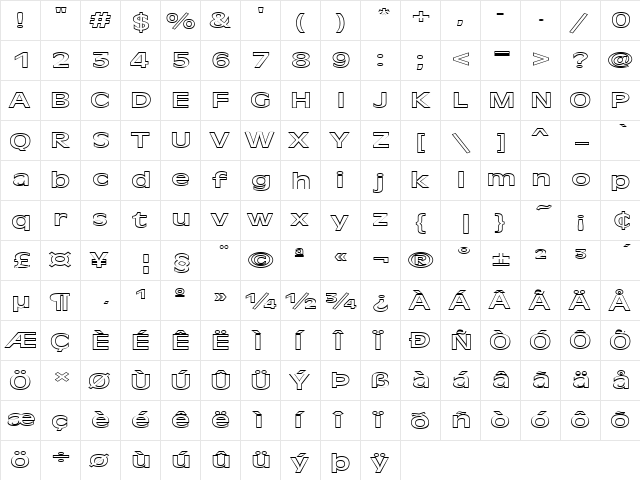
FZ BASIC 2 HOLLOW EX Normal
Design Context for FZ BASIC 2 HOLLOW EX Typeface
FZ BASIC 2 HOLLOW EX is a composed and adaptable typeface that performs quietly and consistently across a wide range of design contexts.